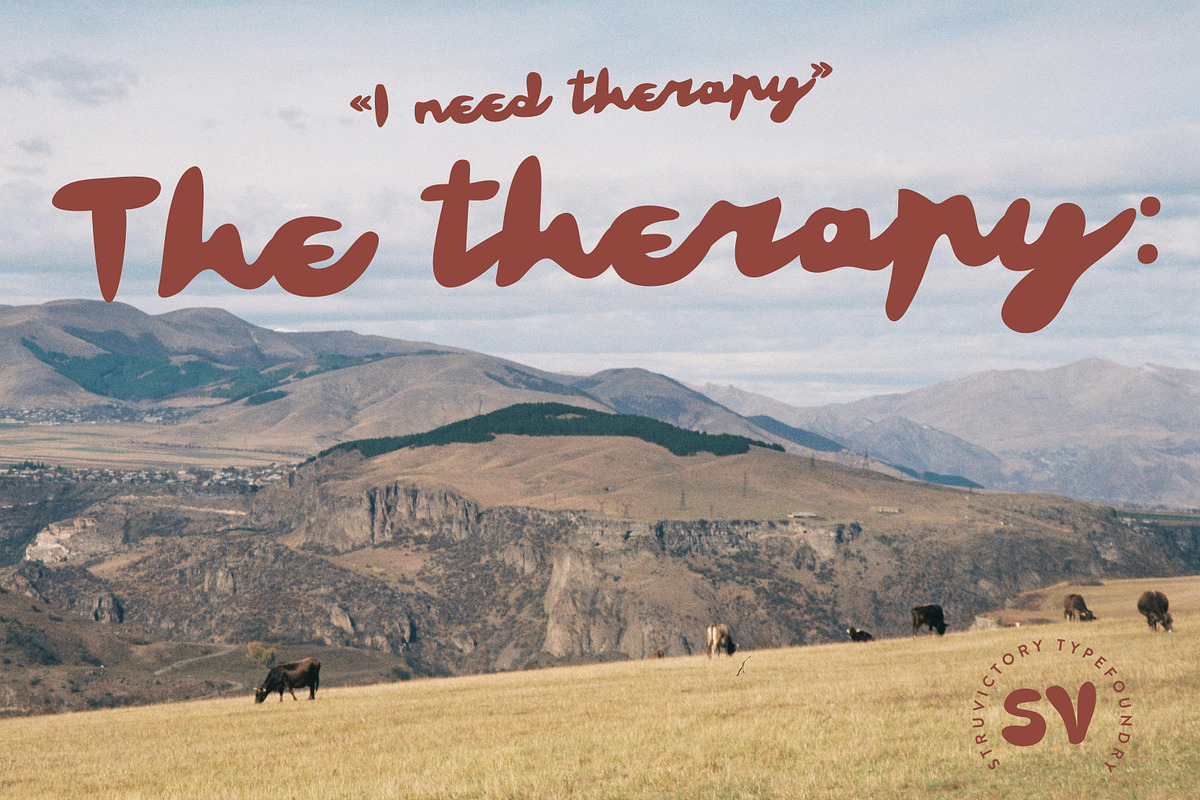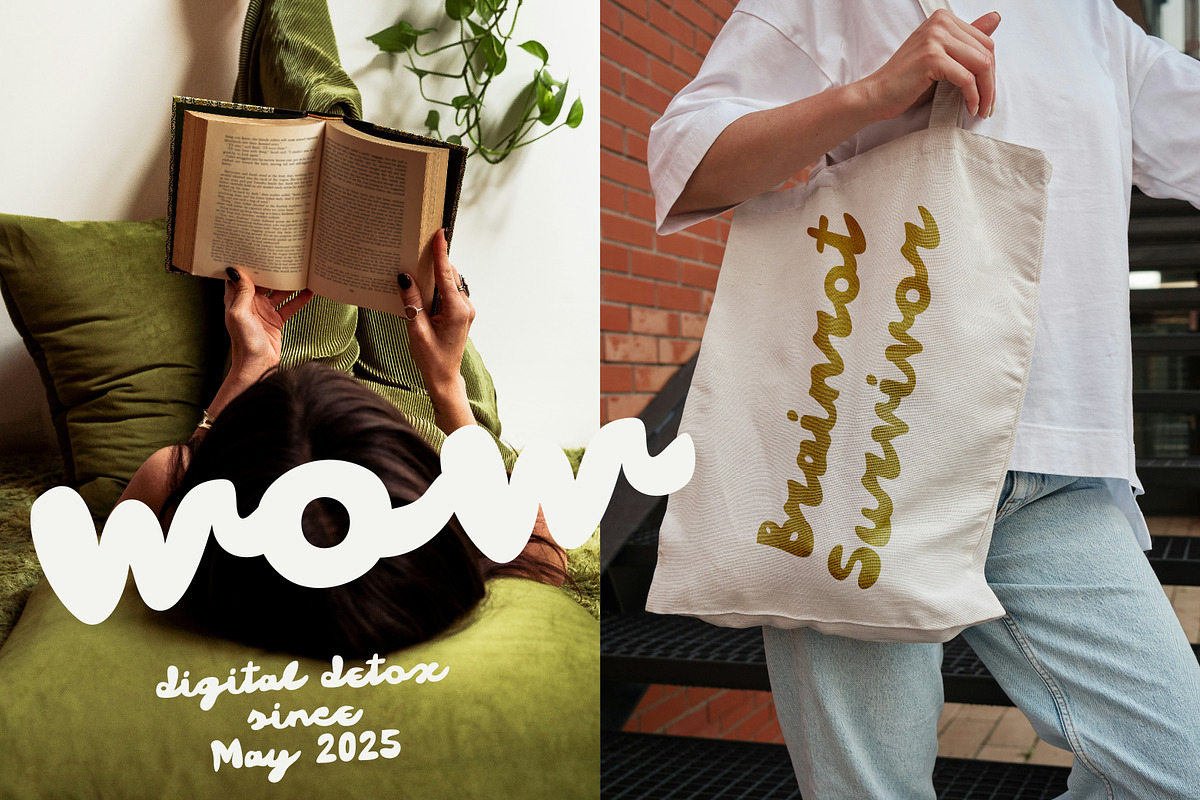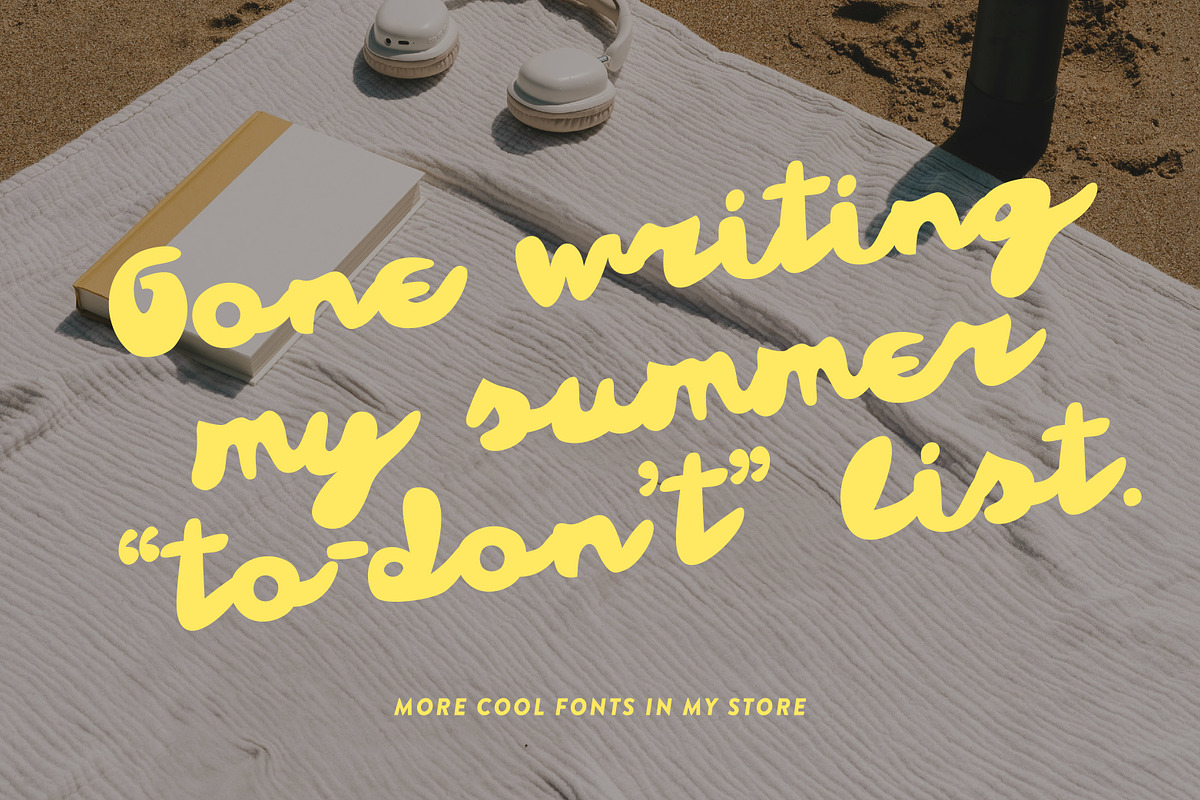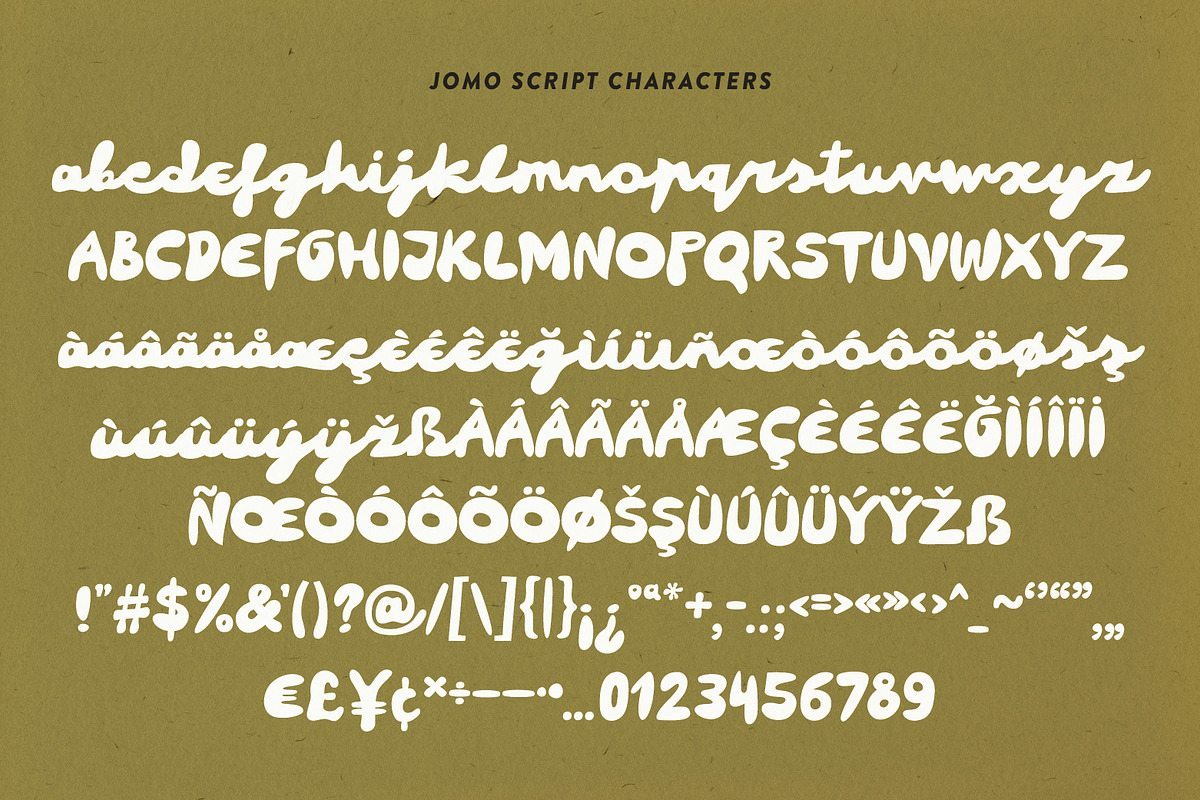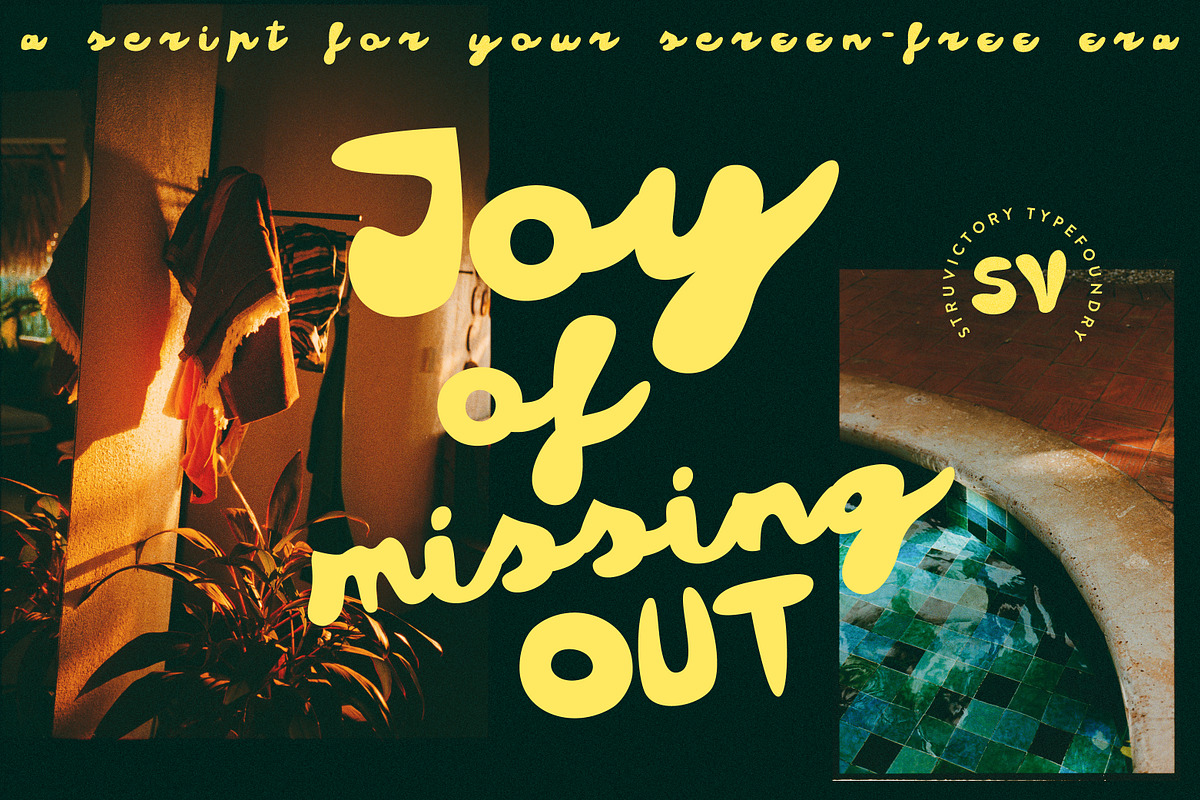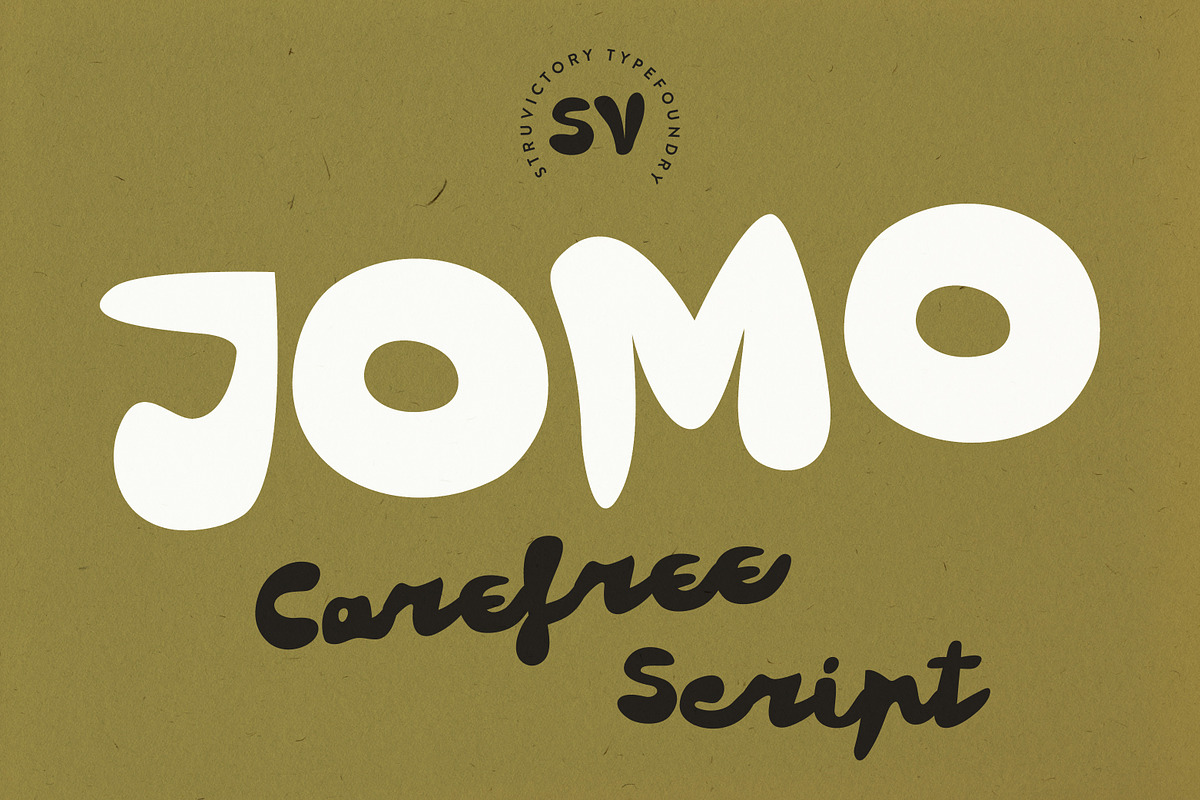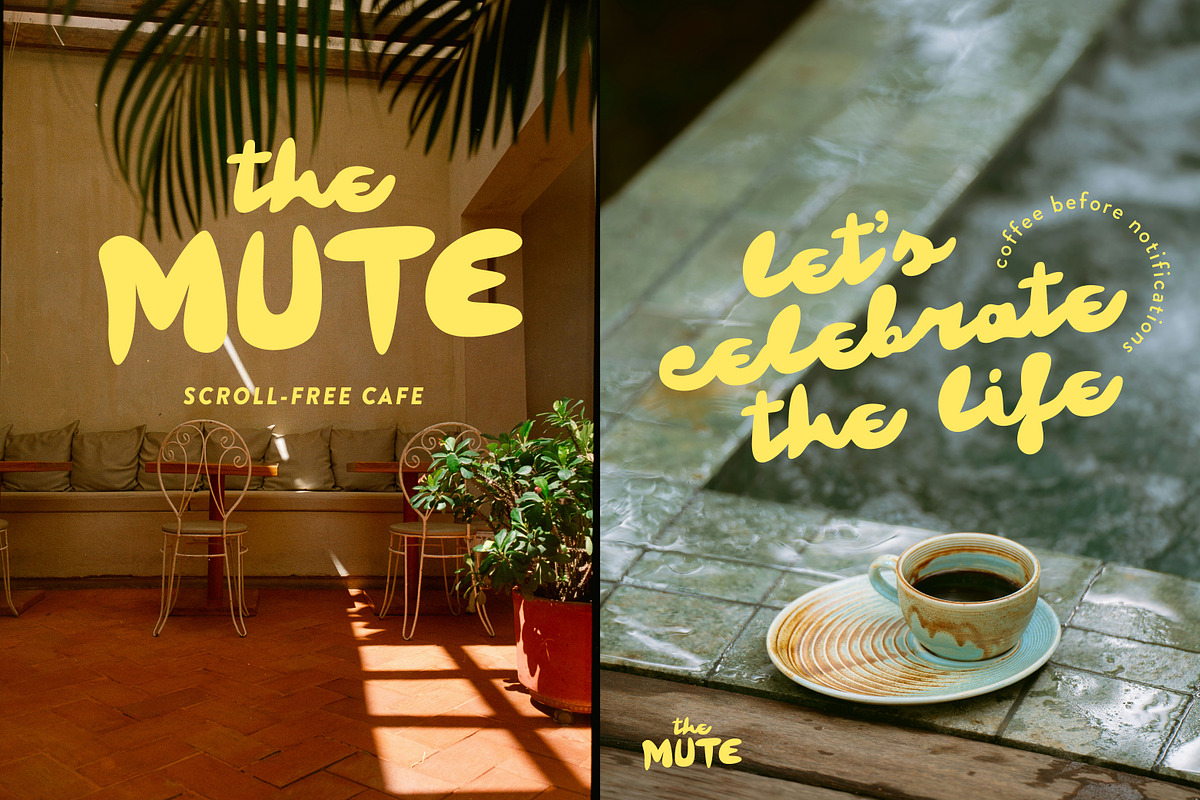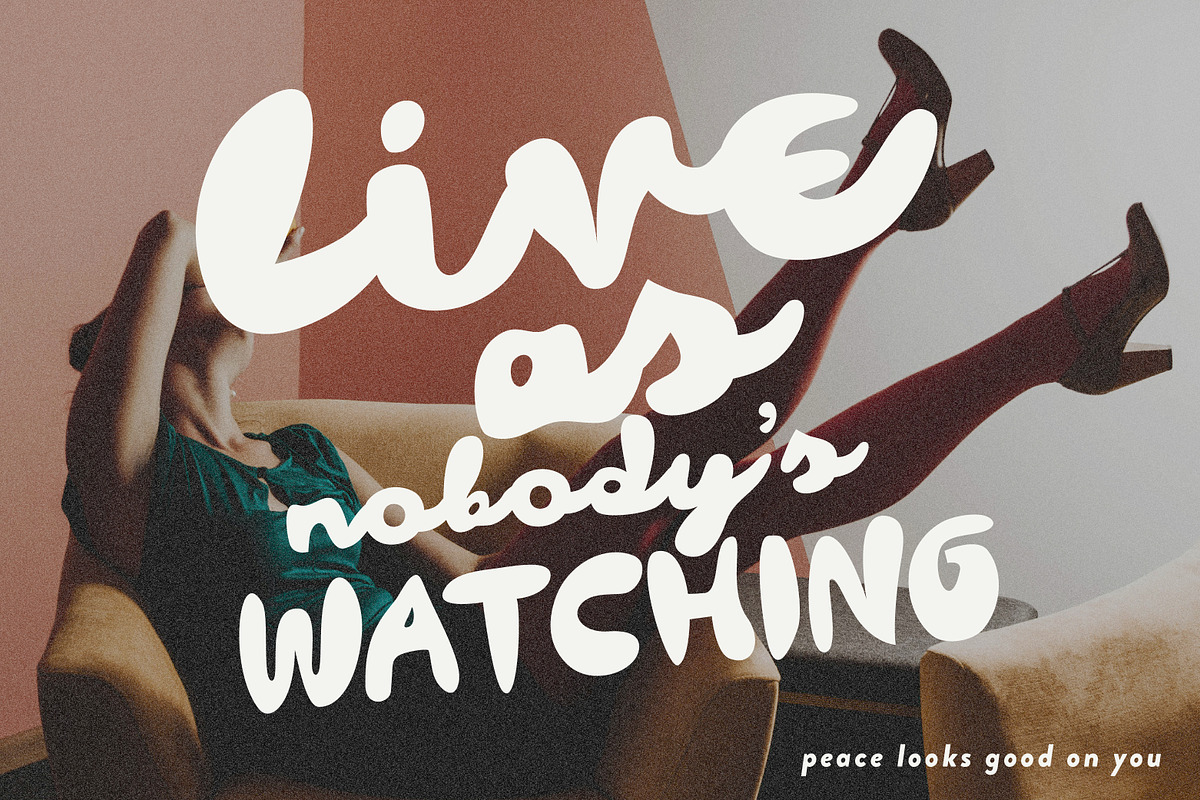
JOMO Carefree Detox Vibe Script
JOMO is a carefree script font inspired by the joy of missing out, analog aesthetics, and digital detox culture. With its loose strokes, nostalgic energy, and just the right dose of messiness, it brings personality and freedom to your designs. Perfect for self-care brands, slow living projects, bold quotes, apparel, packaging, and anything that needs a handwritten vibe with attitude, JOMO invites you to pause, unplug, and create with intention.